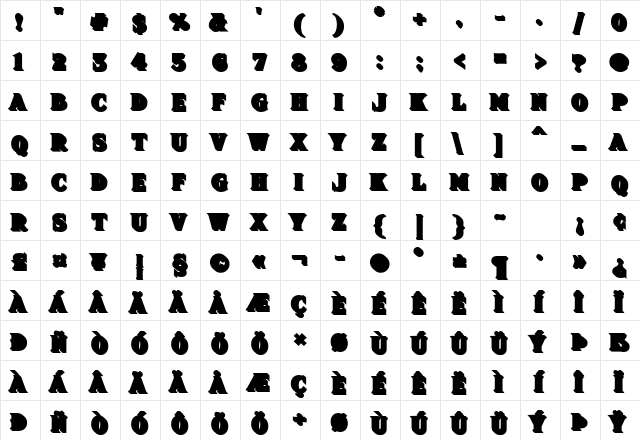
FHA Sign DeVinne Shade25NC Regular
Design Context for FHA Sign DeVinne Shade25NC Typeface
FHA Sign DeVinne Shade25NC is a composed and adaptable typeface that performs quietly and consistently across a wide range of design contexts.
Pro Tip: Use FHA Sign DeVinne Shade25NC in both headline and body roles to test its range before committing to a single application.